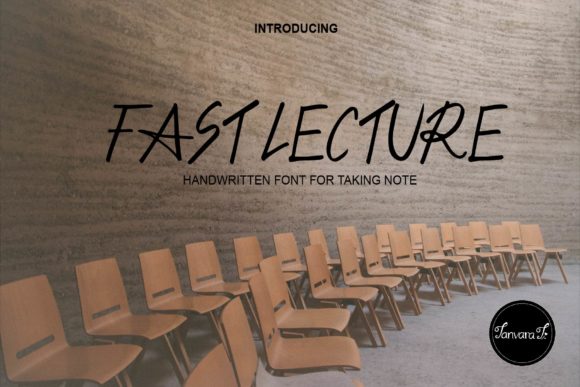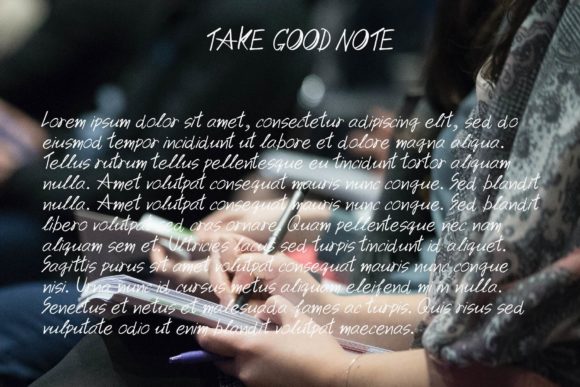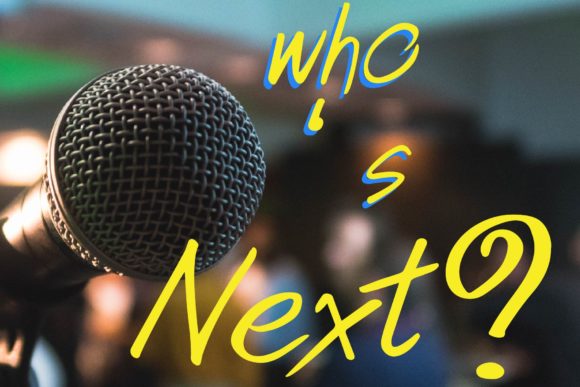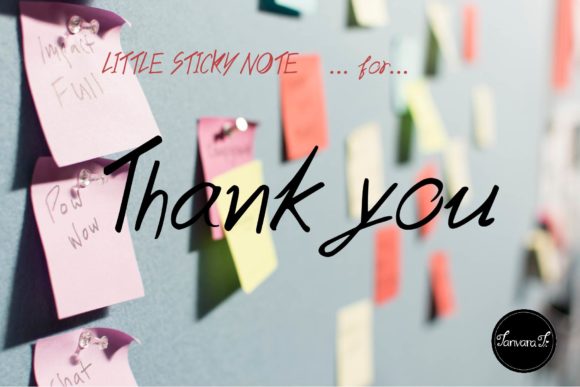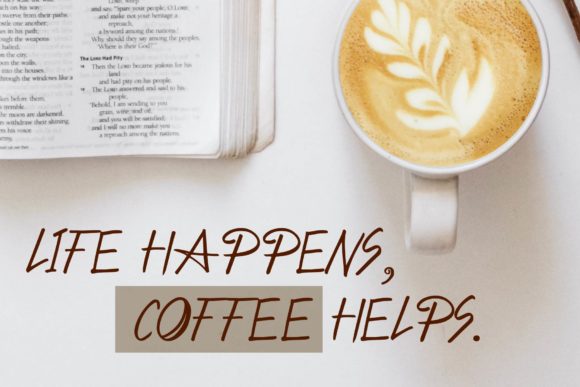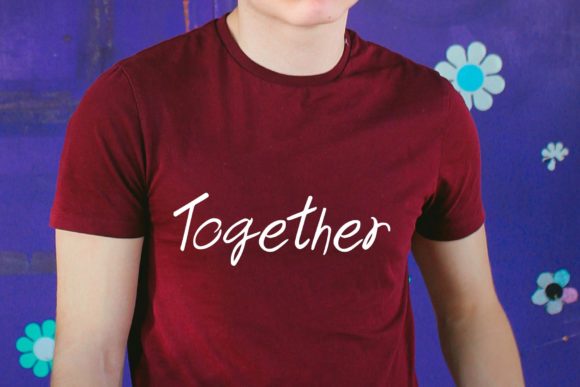
Fast Lecture Font
About Fast Lecture Font
Fast Lecture is a simple and incredibly distinct handwritten font. Its versatile style makes it fit for both formal and non-formal designs. Add it to your creative ideas and notice how it makes them stand out!